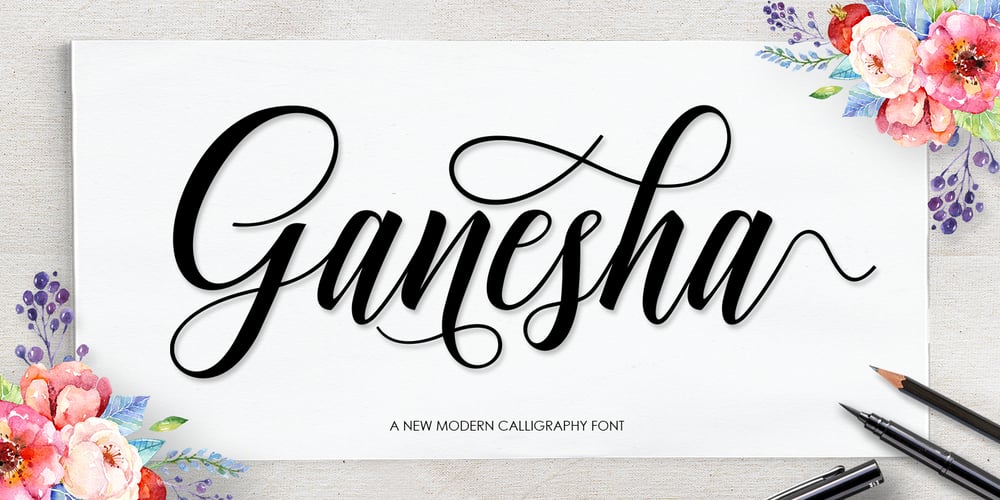
Ganesha Script
Ganesha Script font
Ganesha Script Font Family was designed by Samsul Kamal and published by Lettersams. Ganesha Script contains 1 styles and family package options. Ganesha Script is modern calligraphy design, including Regular. This font is casual and pretty with swashes. Can used for various purposes. such as logo, product packaging, wedding invitations, branding, headlines, signage, labels, signature, book covers, posters, quotes and more.Ganesha Script features OpenType stylistic alternates, ligatures and International support for most Western Languages is included. To enable the OpenType Stylistic alternates, you need a program that supports OpenType features such as Adobe Illustrator CS, Adobe Indesign & CorelDraw X6-X7, Microsoft Word 2010 or later versions.Ganesha Script is coded with PUA Unicode, which allows full access to all the extra characters without having special designing software. Mac users can use Font Book , and Windows users can use Character Map to view and copy any of the extra characters to paste into your favourite text editor/app.